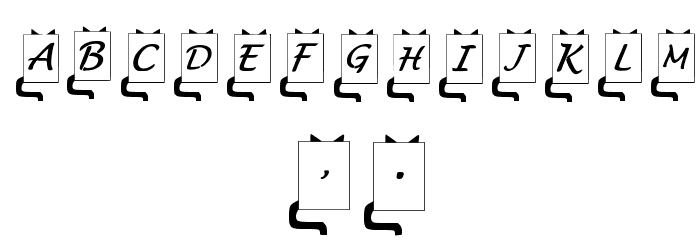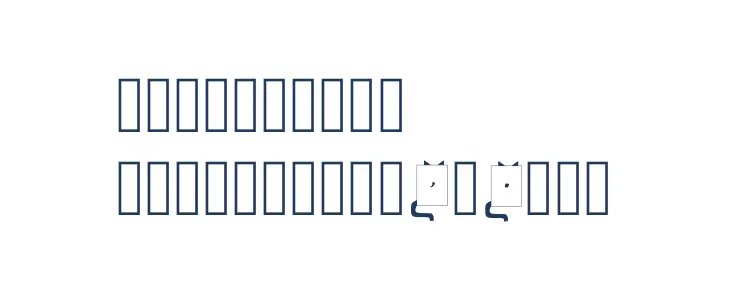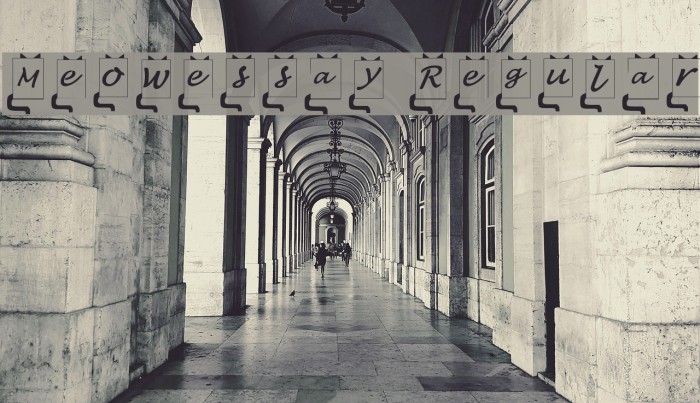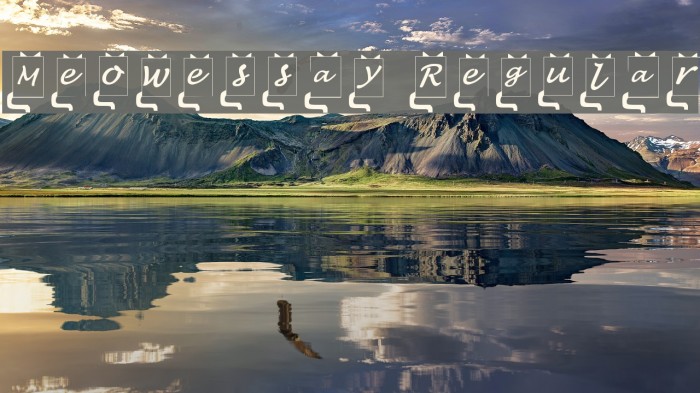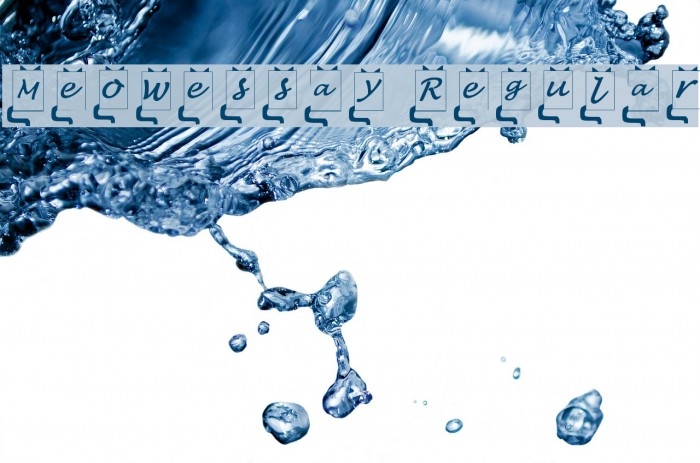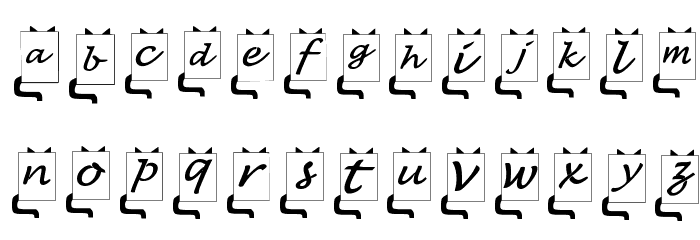
Meowessay Regular Font
Meowessay Regular Description
This playful and whimsical font features characters enclosed within cat-like shapes, complete with ears and tails. The letters themselves are elegantly crafted with a script style, offering a smooth and flowing appearance. The uppercase and lowercase letters maintain a consistent style, with slight variations in stroke thickness that add a touch of charm. The font includes a full set of uppercase and lowercase letters, numbers, and a selection of special characters, all presented within the distinctive cat motif. This unique design element makes the font particularly eye-catching and suitable for creative projects.
A whimsical script font with characters enclosed in cat-like shapes from Uncategorized fonts.
- Proposed Projects: Ideal for children's books, playful branding, pet-related products, and creative invitations.
- Overall Style: Playful, Whimsical
- Use Case: Logos, Invitations, Creative Projects